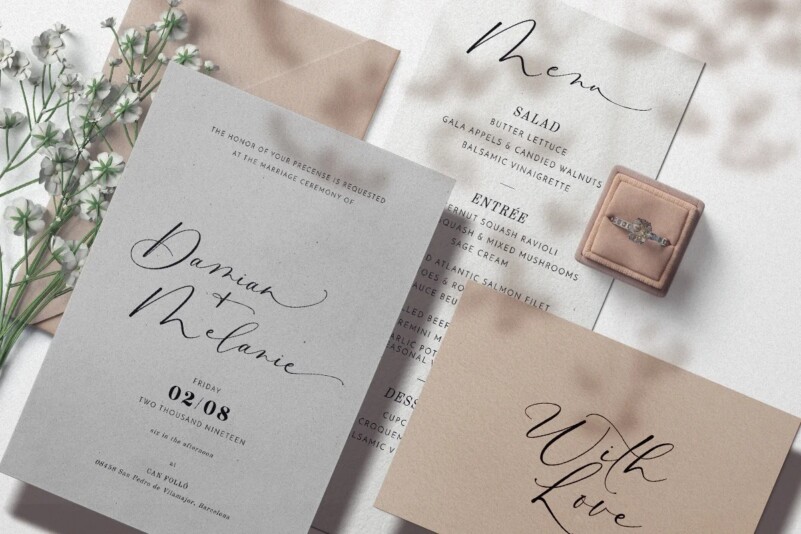
Baliland Font
Baliland Font is a unique handwritten script font from typeline studio that looks elegant, modern, and stylish. Inspired by the beauty of Bali insland which is full of romance. this font perfect for creating wedding card intvitation, rsvp, baliland best for suitable for feminine logos or branding.